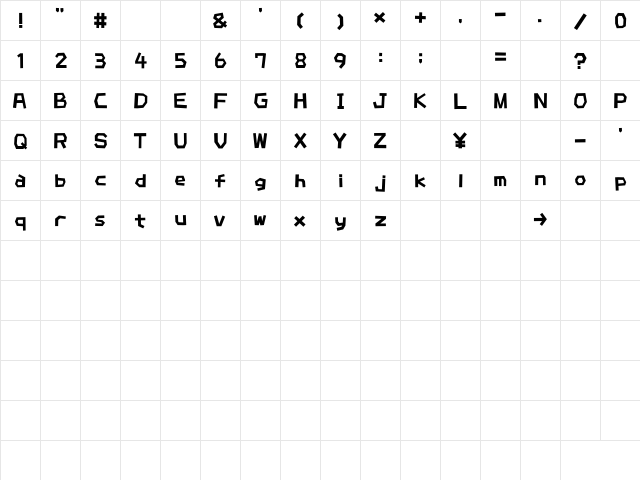
MW BRICK Regular Font Preview
MW BRICK Regular
Design Context for MW BRICK Typeface
MW BRICK offers clean, dependable letterforms without strong stylistic allegiance, making it a practical choice for designers who need flexibility.